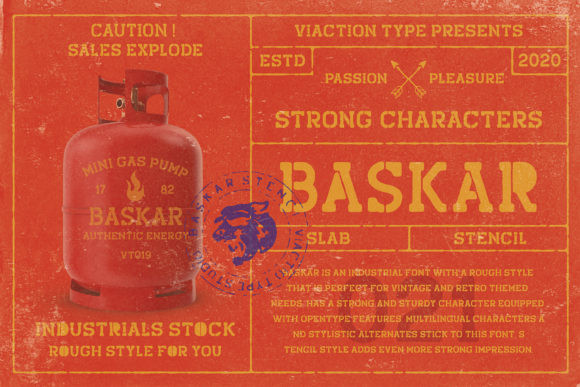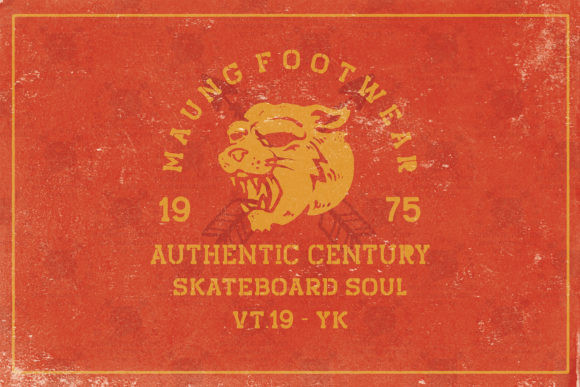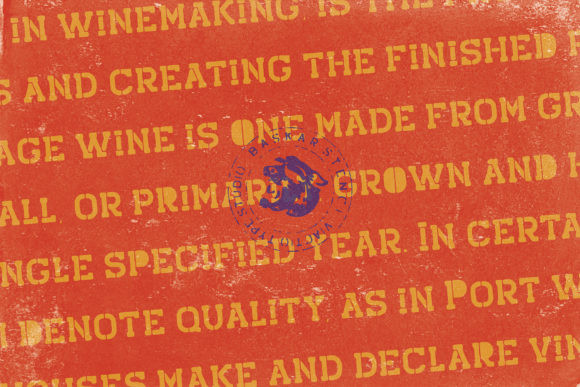
Baskar Font
Baskar is a vintage industrial slab serif that’s great for use in a wide variety of products. It contains technical characters and incredibly stylistic alternates. It is suitable for clothing designs, vintage logos, labels, posters, packaging designs, and other applications!